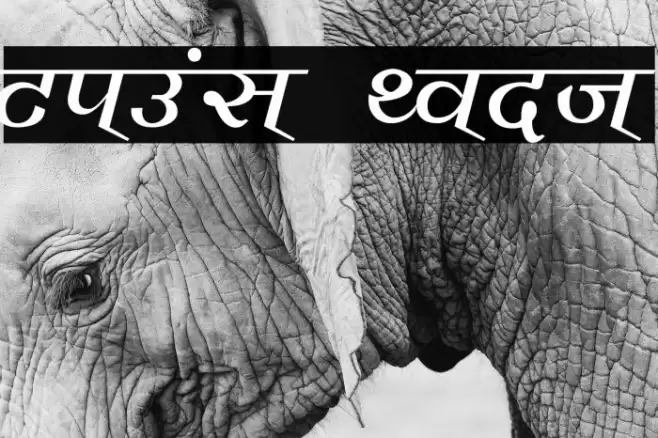
Vimal Font
Vimal Description
This font is a Devanagari script characterized by its elegant and flowing design. The letters exhibit a traditional style with a slight slant, giving it a dynamic and lively appearance. The strokes are moderately thick, providing a balanced contrast that enhances readability while maintaining an artistic flair. The numerals are distinct and harmonize well with the overall script. Special characters are crafted with attention to detail, adding to the font's versatility. This font is suitable for conveying a sense of cultural richness and heritage.
| Overall Style | Traditional |
| Use Case | Headlines, Body text, Cultural documents |
| Proposed Projects | Ideal for cultural publications, traditional event invitations, and educational materials in Hindi or Marathi. |